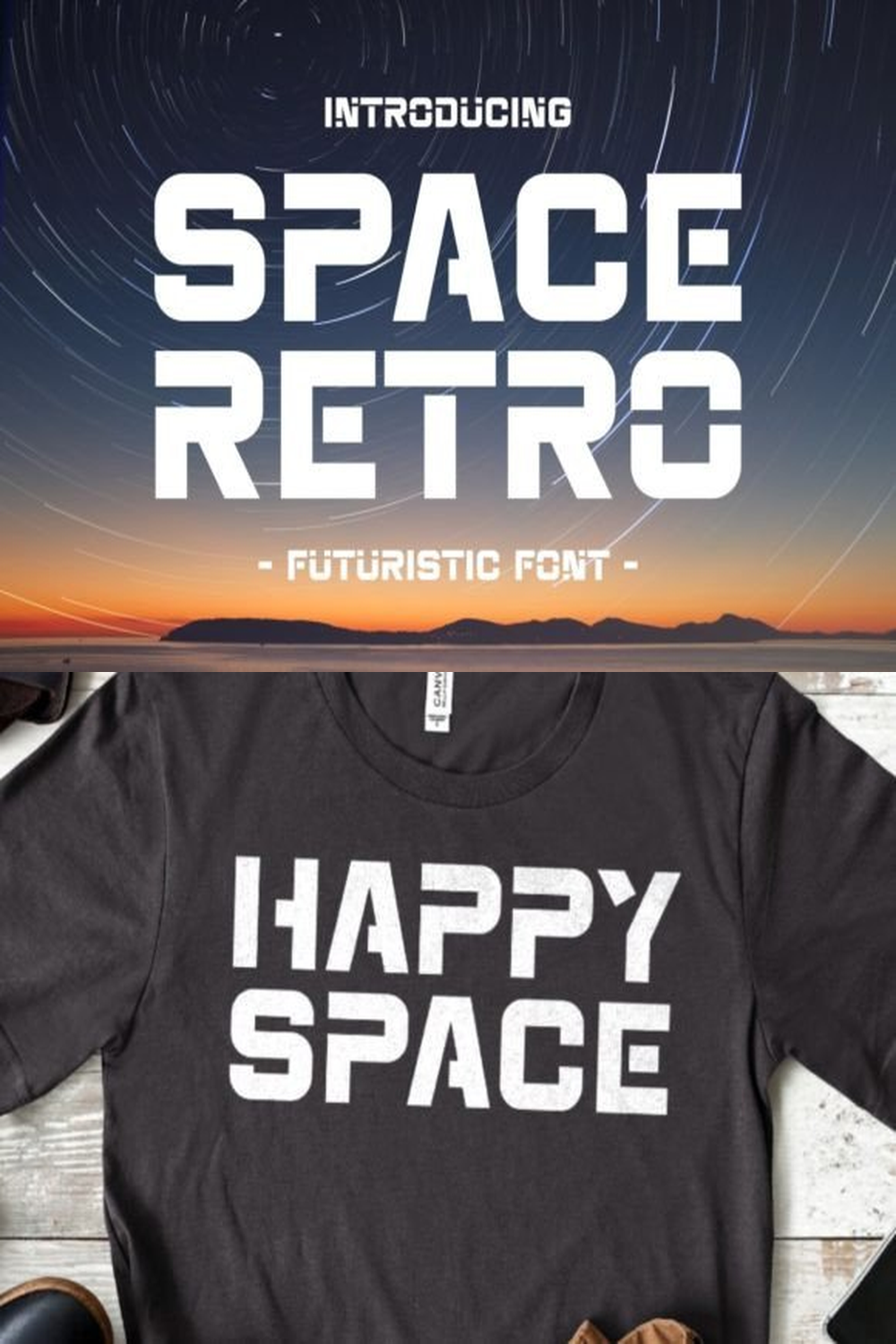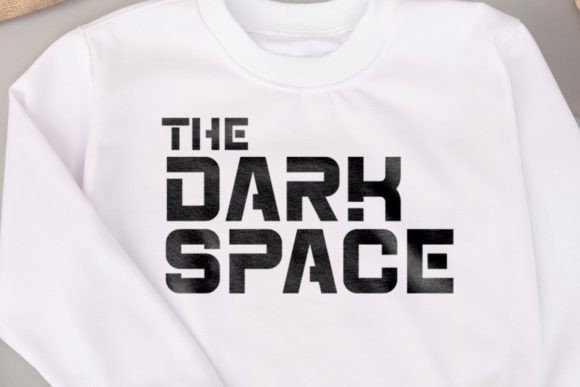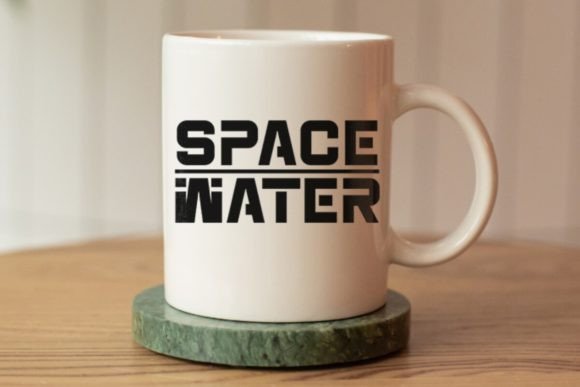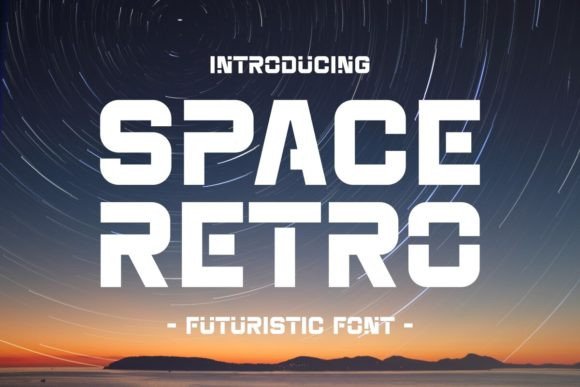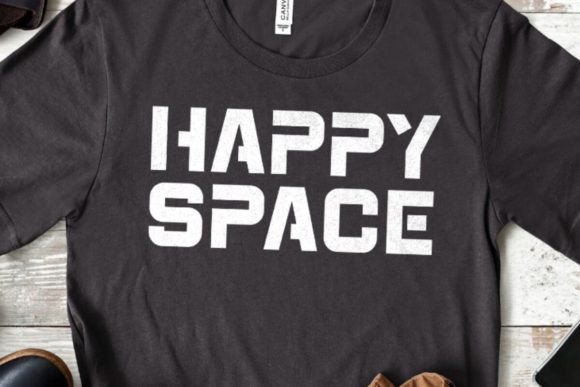
Space Retro Font
About the Space Retro Font
Explore the possibilities with Space Retro Font, a font that offers both beauty and functionality. Space Retro is a modern retro futuristic font that brings a nostalgic yet forward-looking vibe to your design. With its sleek lines and vintage-inspired elements, this display font takes you on a journey through space and time. Space Retro blends the best of the past and the future.